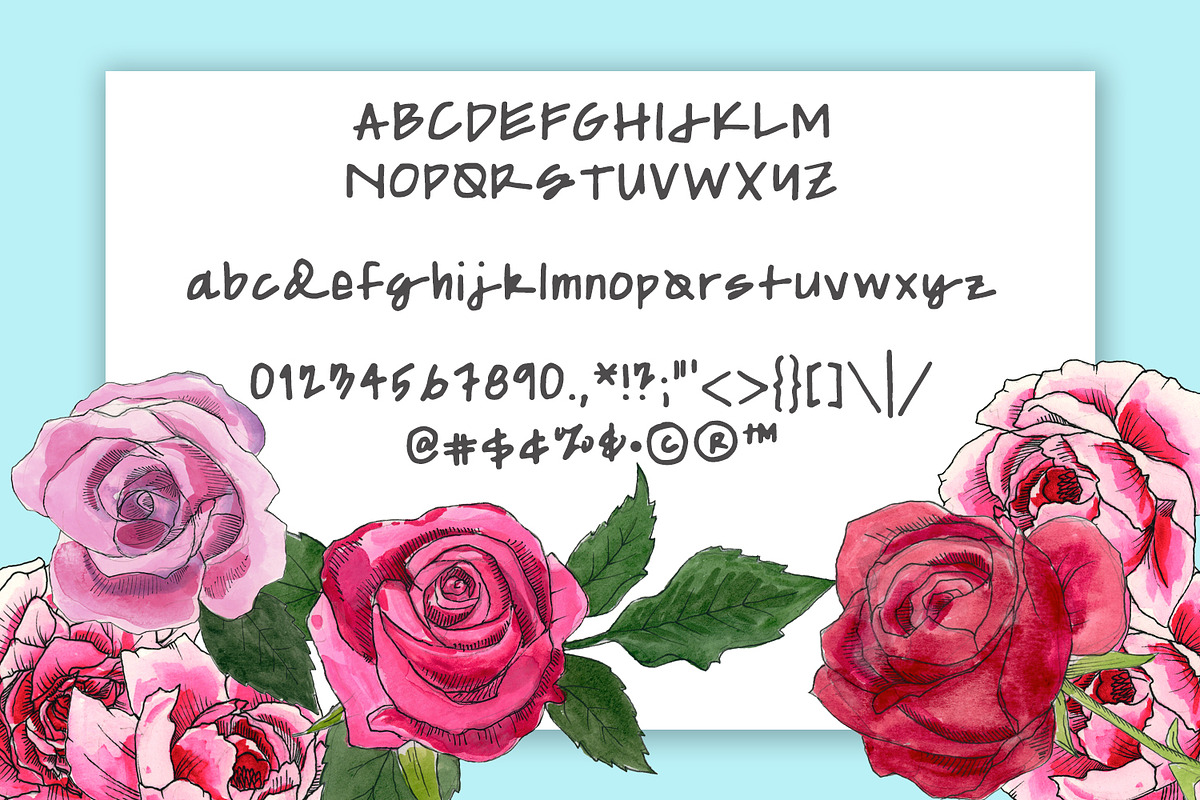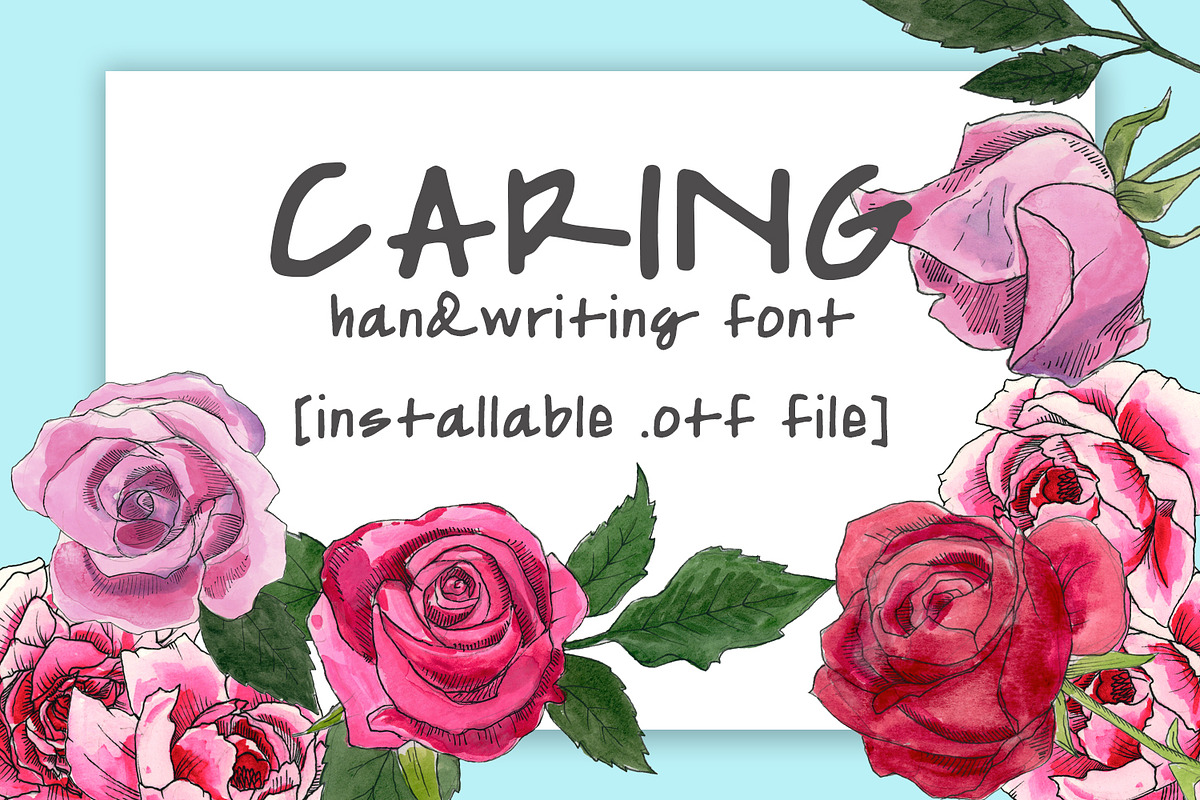
Caring Handwritten Font
All profits from this beautiful, handwritten font will go to support the capital campaign of The Caring Place, a domestic violence shelter serving Porter County, Indiana. The Caring Font was created from the beautiful handwriting of one of the campaign chairs, and it's perfect for both personal or commercial use whenever you need a handmade touch.
Full alphabet with upper and lowercase figures, numbers, and common symbols, all in easy-to install .otf format.